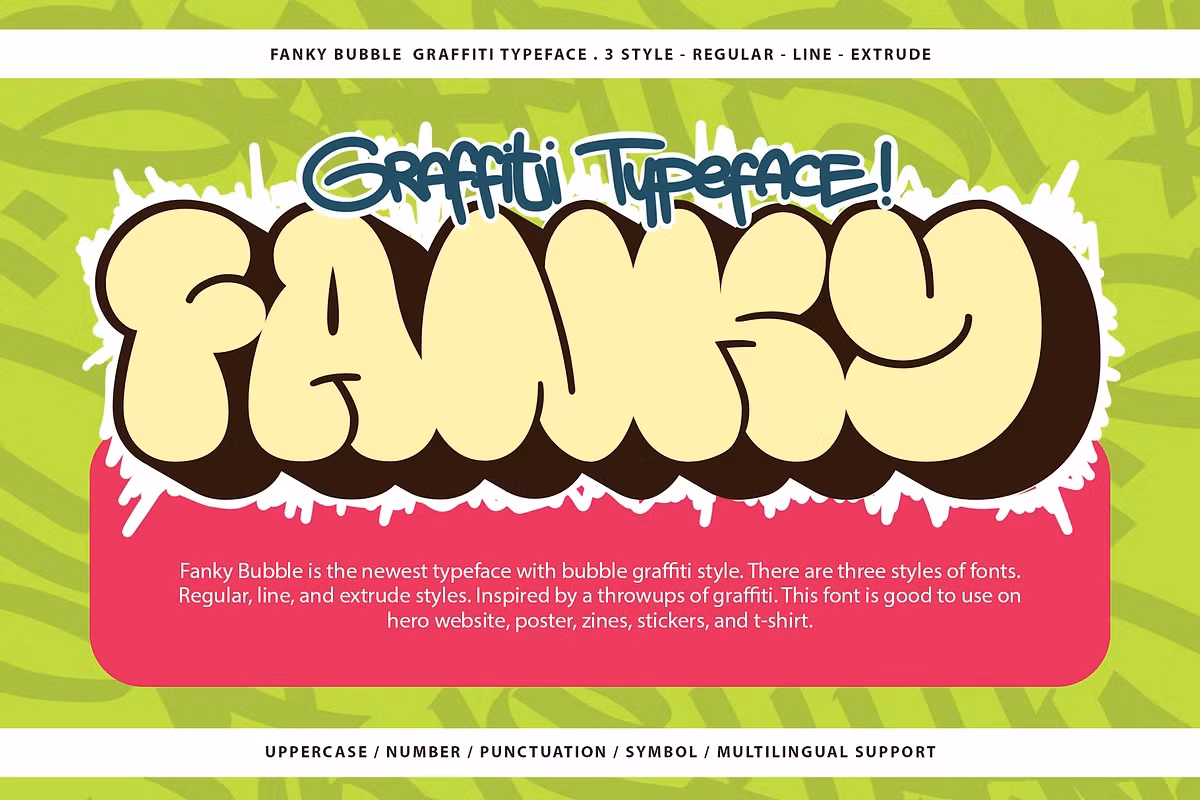
Add some bold, street-style energy to your designs with Fanky Bubble Graffiti Typeface Free Download. This playful, graffiti-inspired typeface features rounded, bubble-like letterforms, perfect for making a statement in posters, logos, t-shirt designs, social media graphics, and any project that needs a fun, urban touch.
Fanky Bubble combines the fluid, spontaneous nature of graffiti art with a vibrant and approachable design, making it ideal for creative, high-impact projects. It includes uppercase and lowercase letters, numerals, punctuation, and multilingual support, allowing you to test various bold and dynamic layouts.